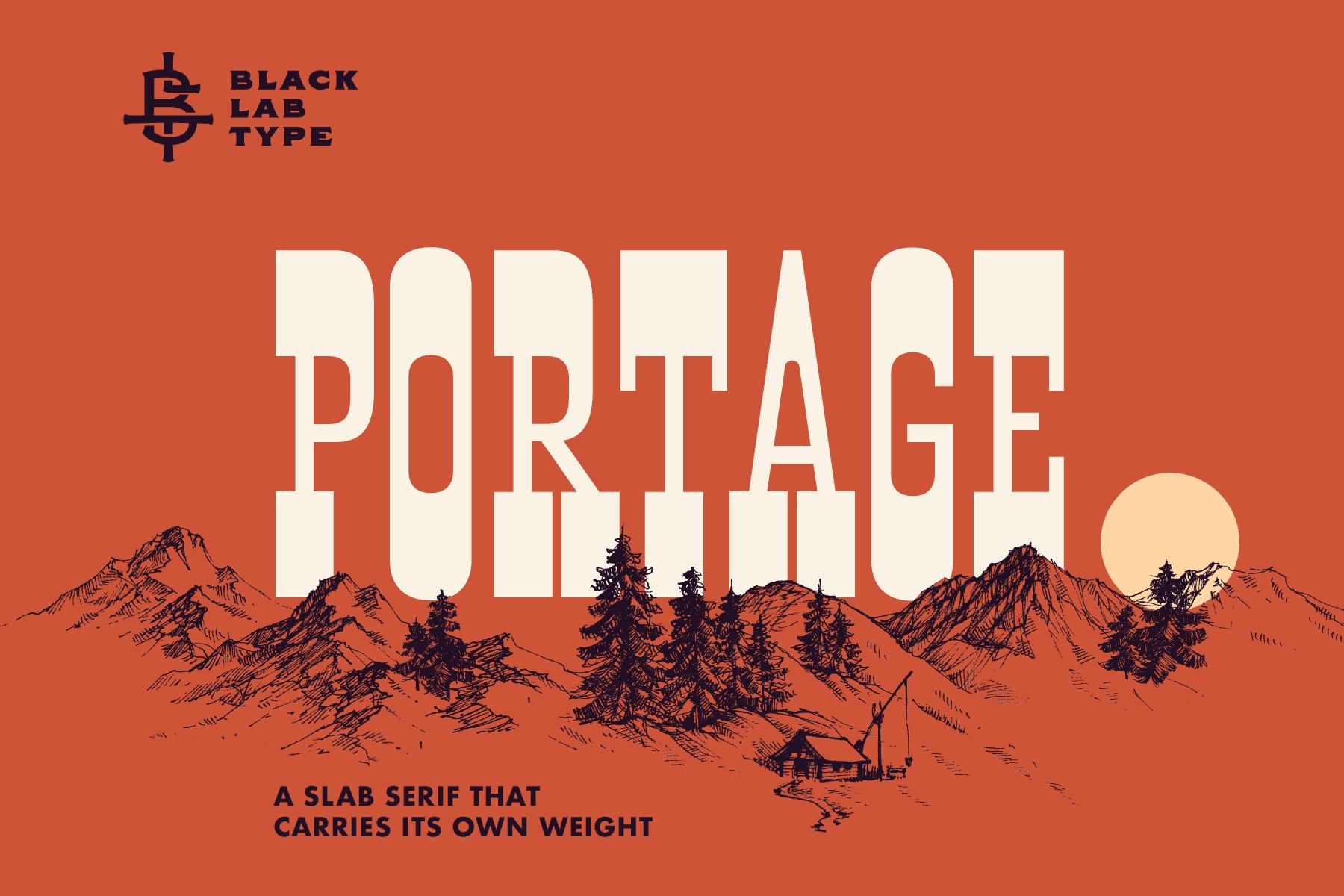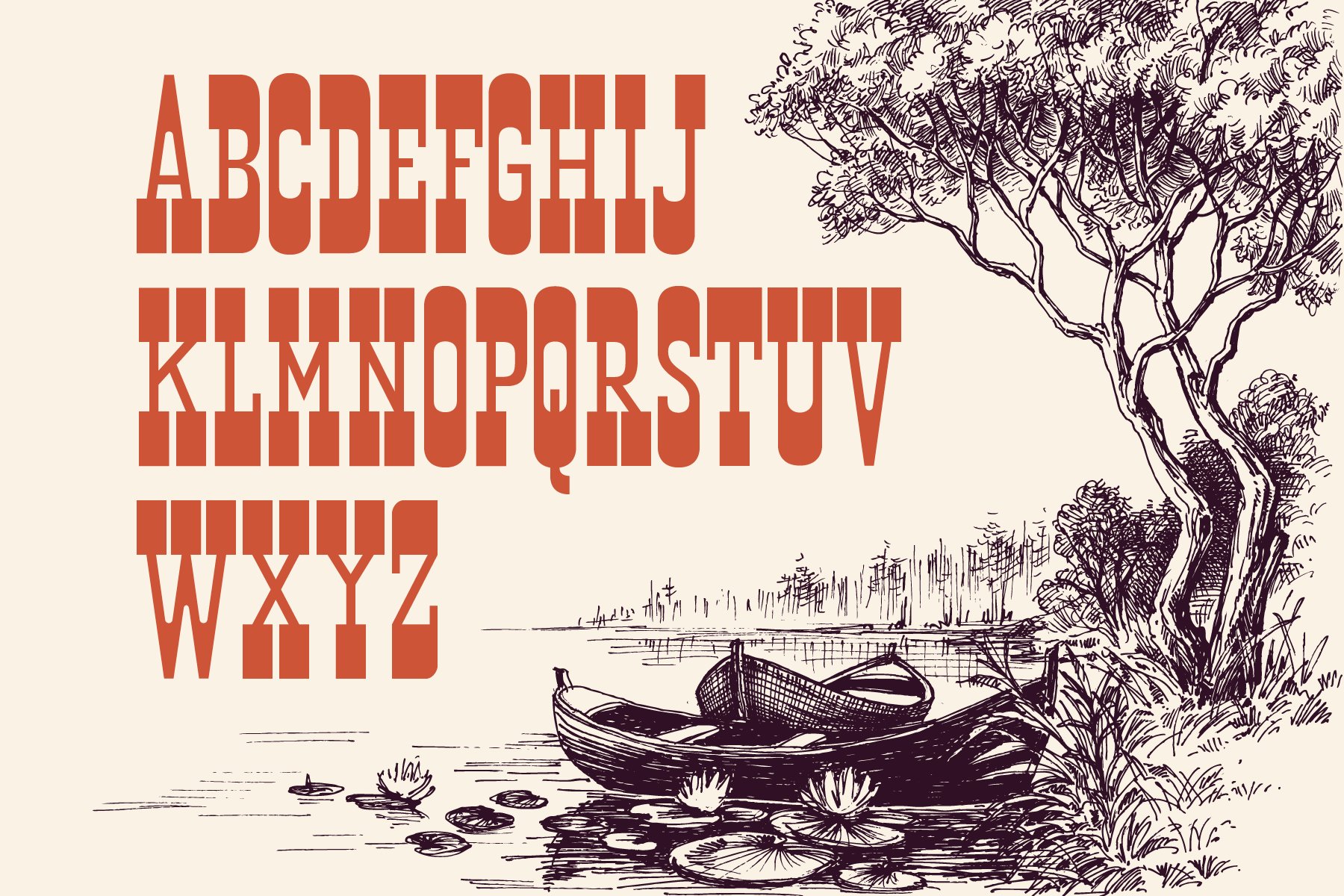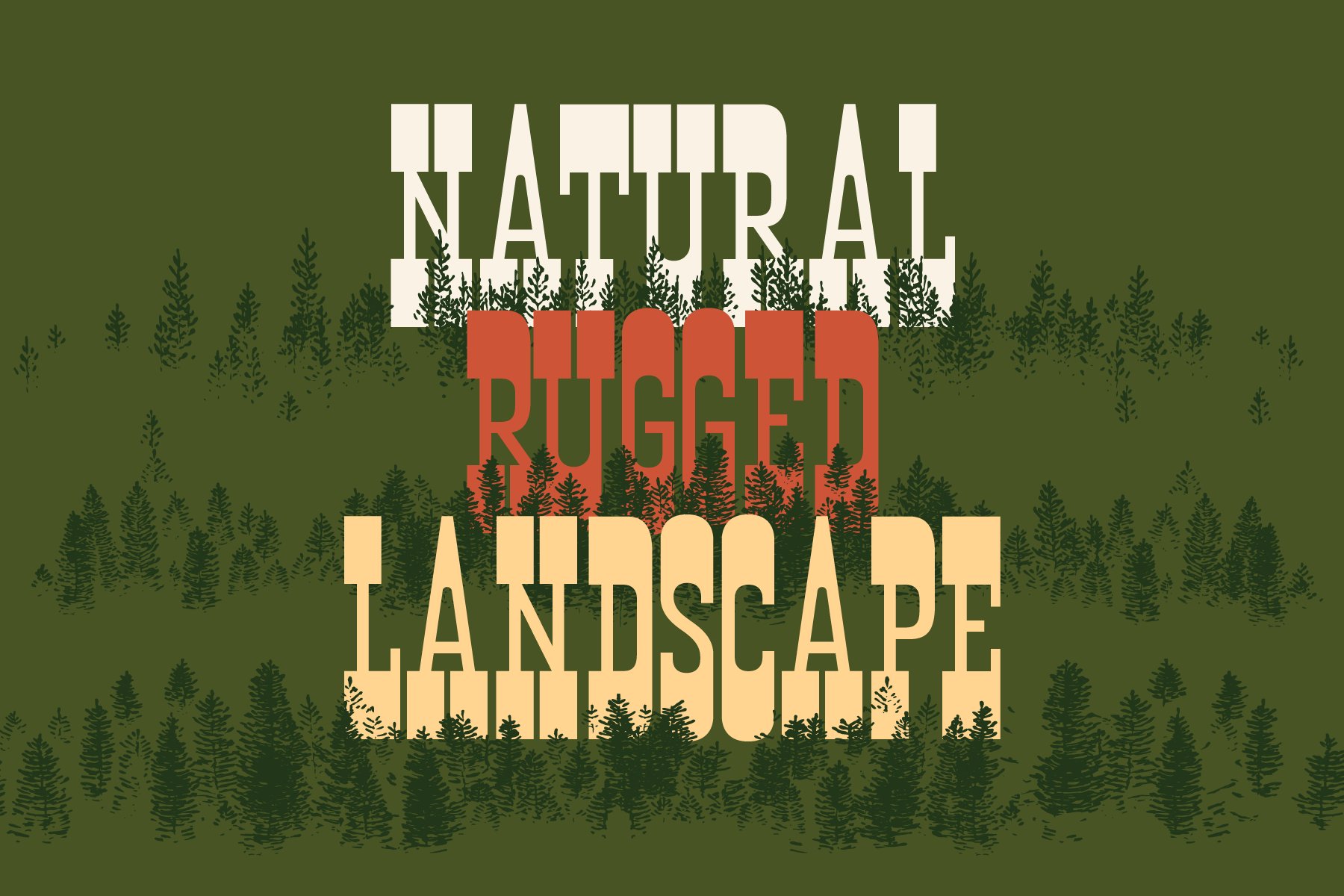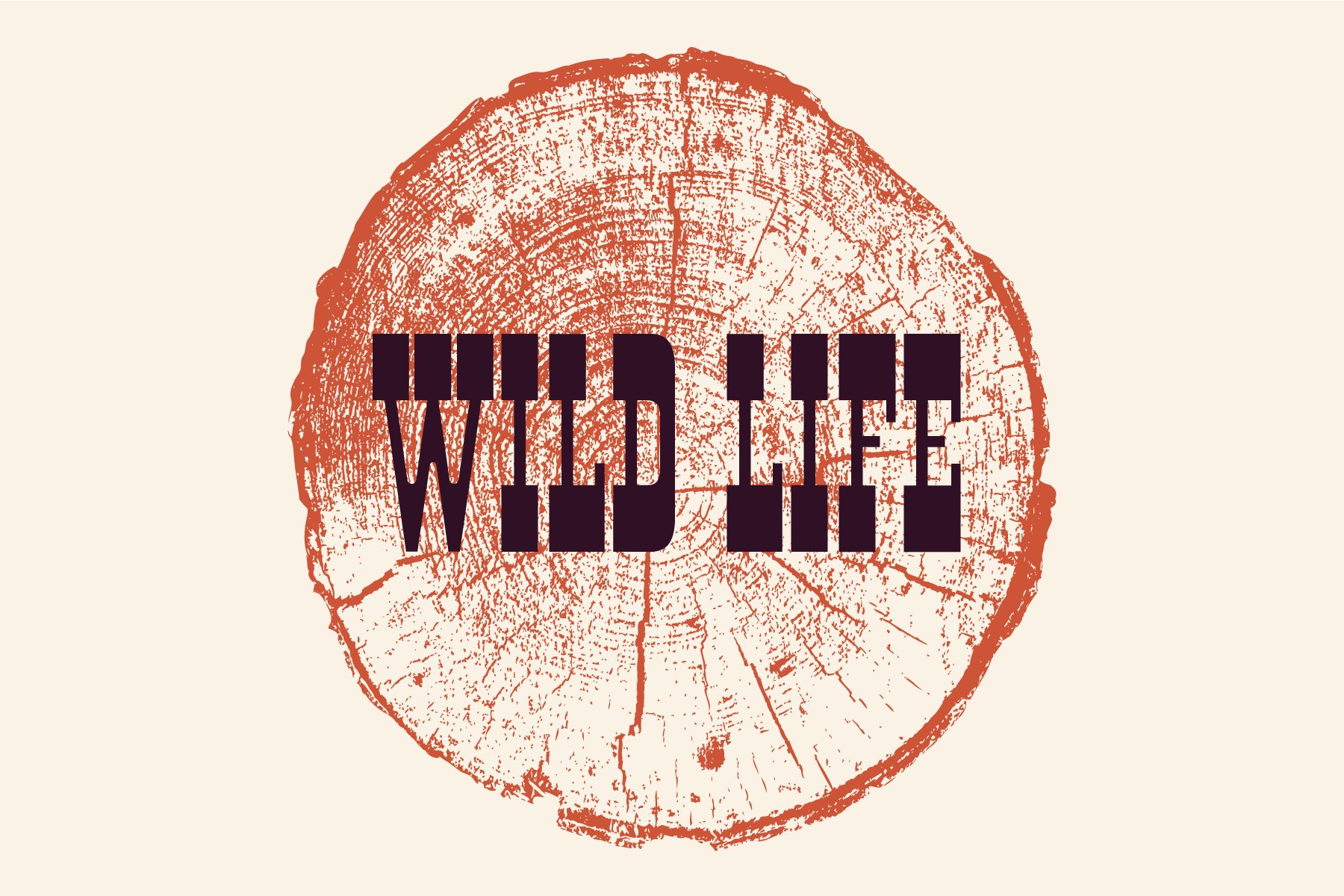
PORTAGE is a slab serif that carries its own weight. Adventurous and rugged, this typeface that evokes the wild country and makes headlines stand out.
The typeface was built from a land and forest journal from the mid-50’s.